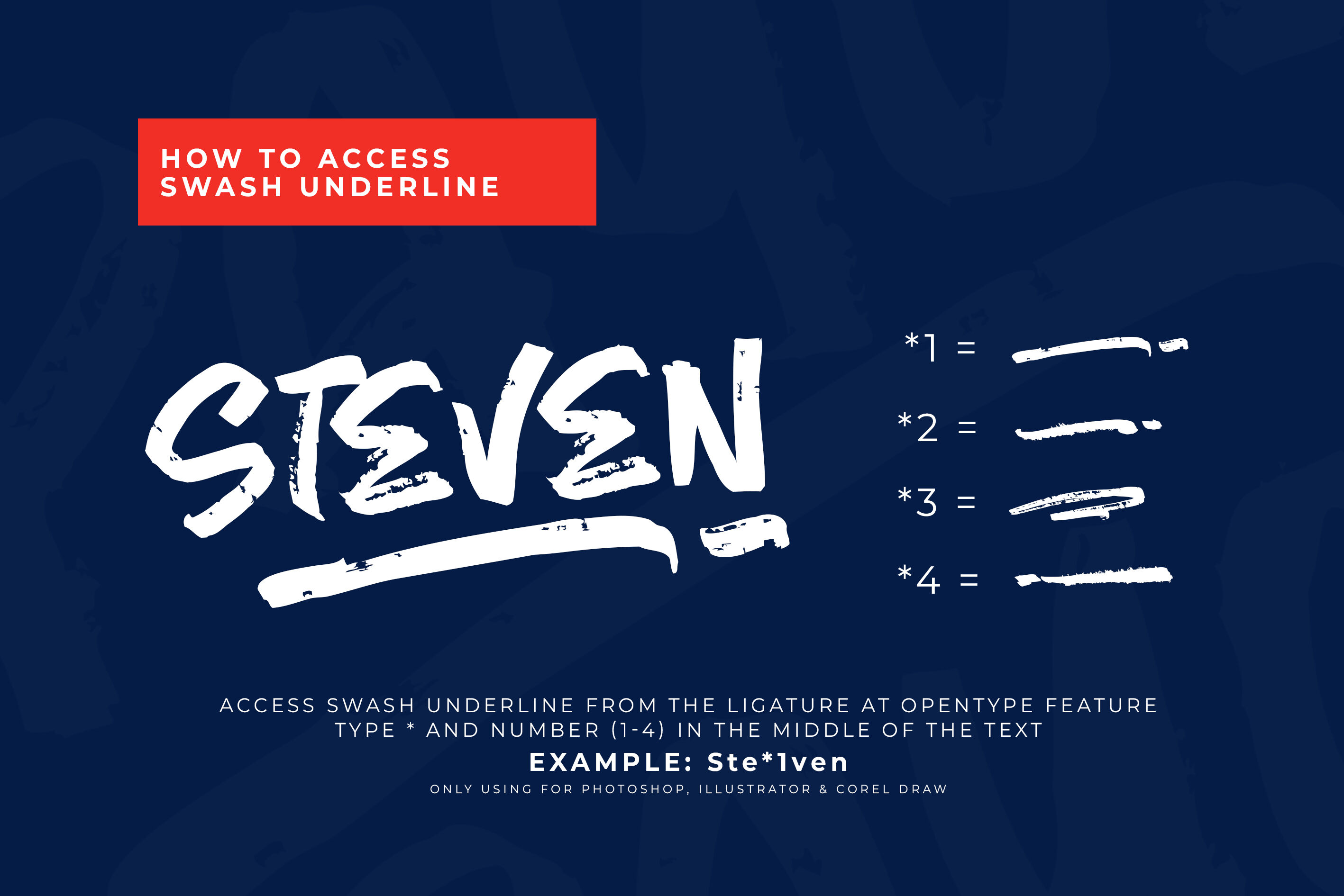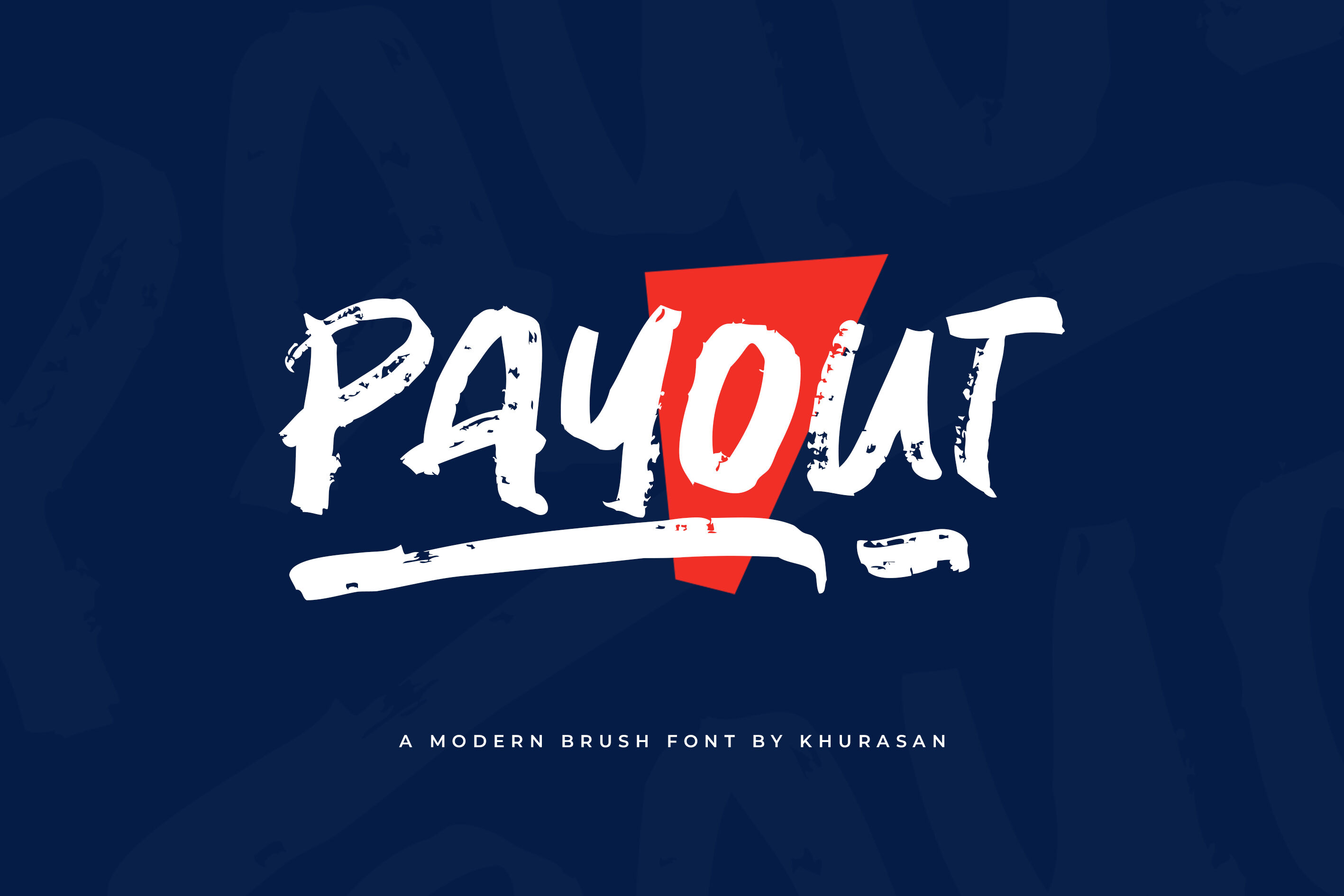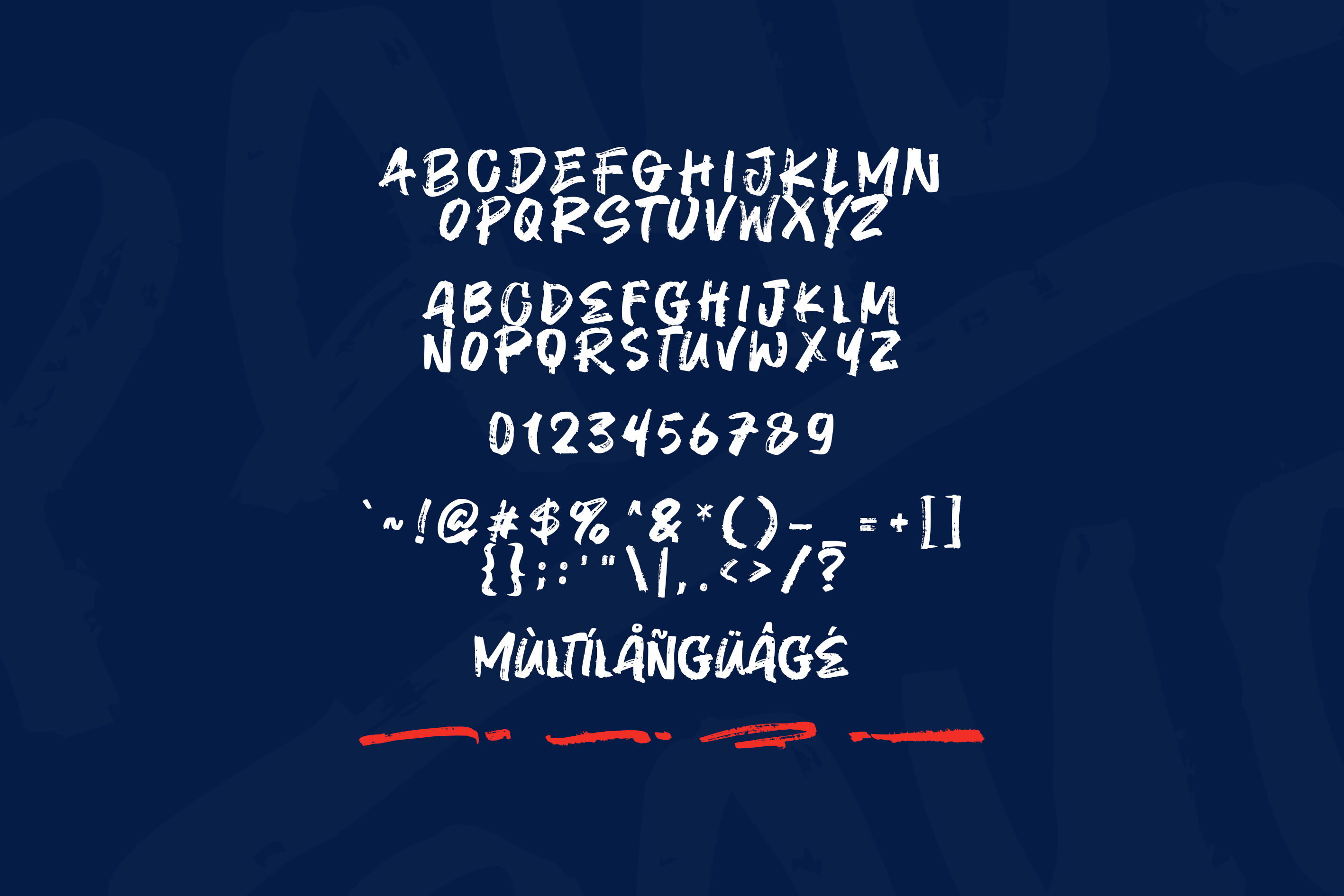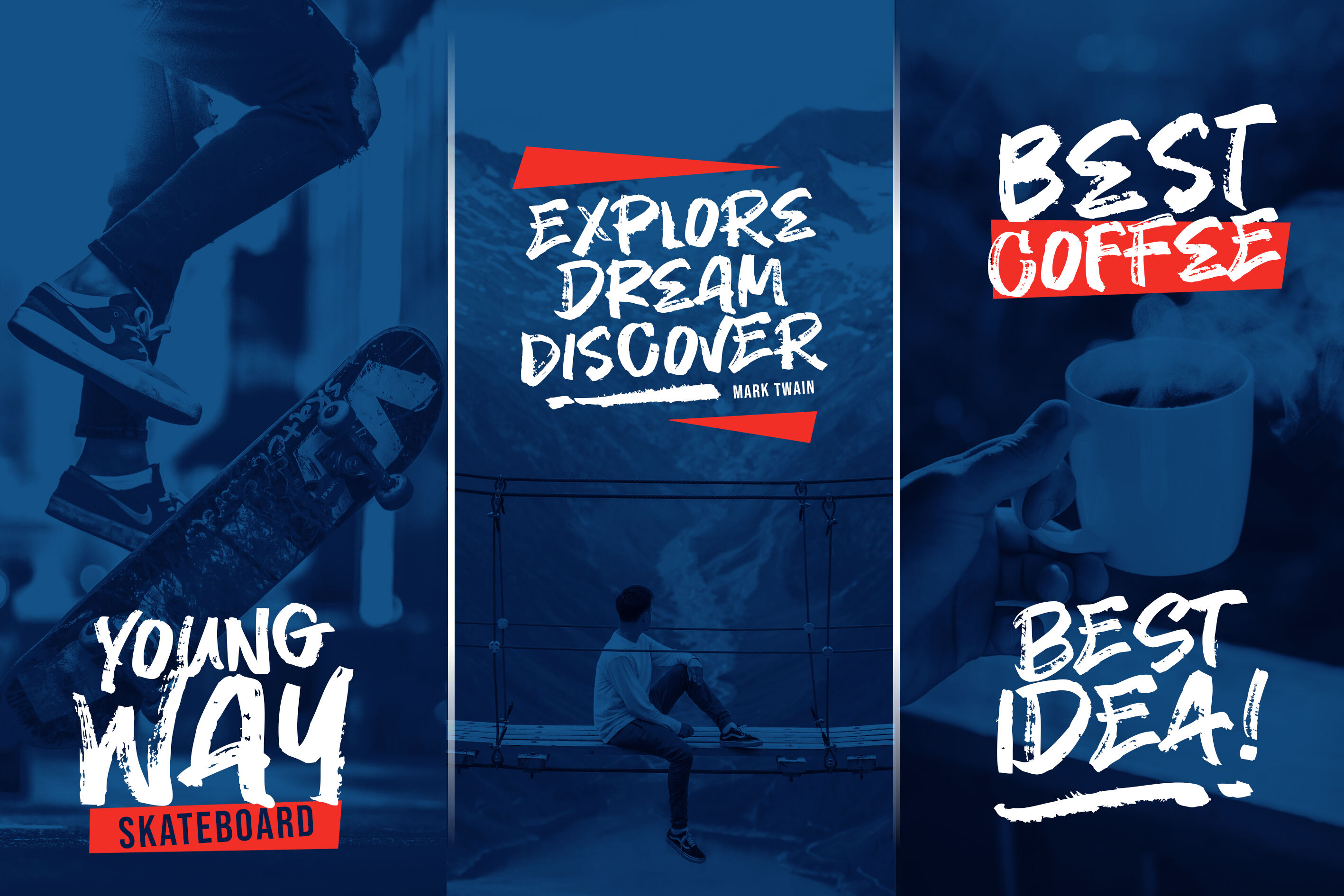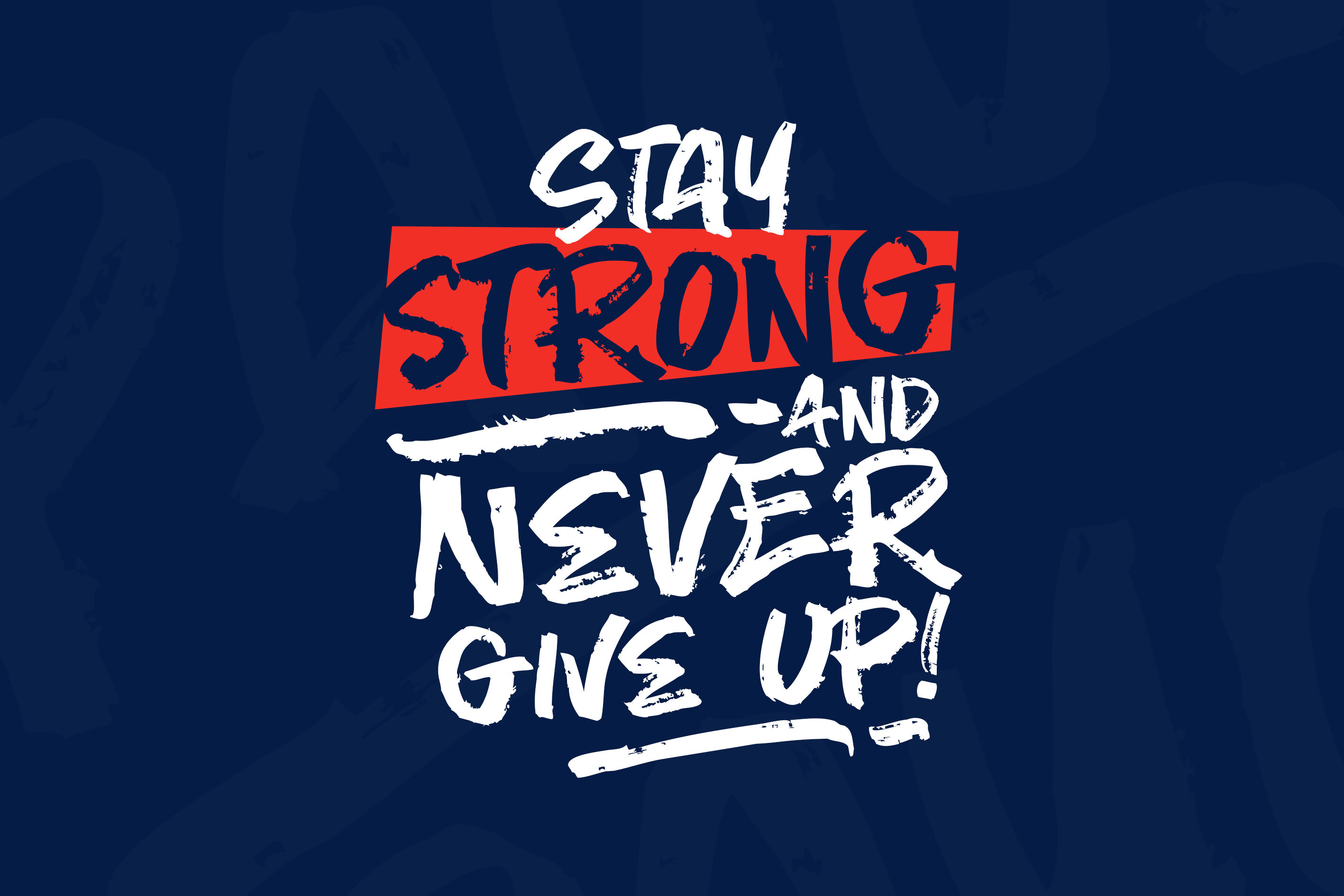
Payout Brush Font
The Payout is a modern brush font, elegant and modern feel character set. The Payout font as well as multi-lingual support, uppercase, lowercase, numerals & punctuation. File Included: Payout.ttf Payout.otf Thank you for checking and i hope you enjoy it. Always put your heart into it and don’t worry to try. I hope you have as much fun using it as i did making it. Khurasan